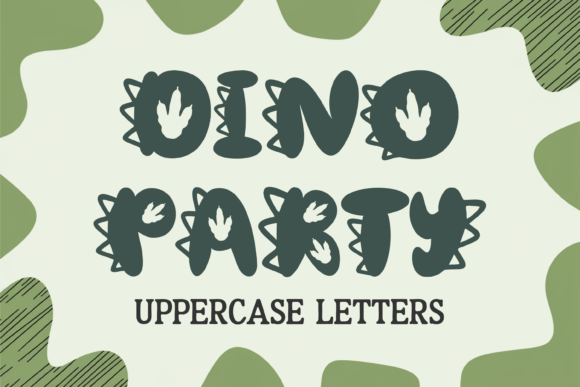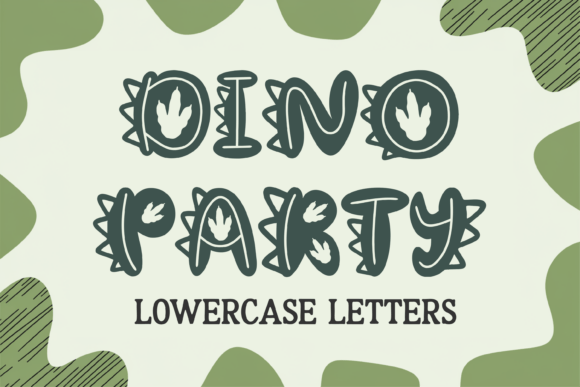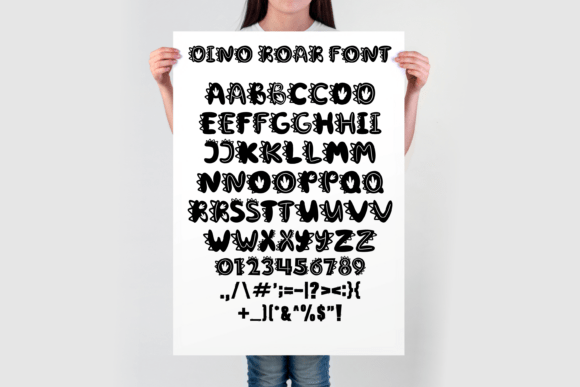
Unleash Your Creativity with the Dino Roar Font: A Playful Dinosaur-Inspired Typeface
Are you a designer, crafter, or DIY enthusiast looking for a fun and bold font to add a prehistoric touch to your projects? Look no further than the Dino Roar Font! This exciting typeface features spiky, dinosaur-inspired letters with embedded dinosaur footprints, making it perfect for crafting projects, kids’ birthday invitations, t-shirts, and jungle-themed party decorations.
What Makes the Dino Roar Font So Special?
The Dino Roar Font is more than just a font – it’s a design element that can elevate your projects to the next level. Its unique, playful design features:
- Spiky, prehistoric letters: Each letter is carefully crafted to resemble dinosaur spikes, adding a fun and edgy touch to your designs.
- Embedded dinosaur footprints: The font features embedded dinosaur footprints, adding an extra layer of whimsy and adventure to your projects.
Perfect for Crafting and Design Projects
The Dino Roar Font is ideal for a wide range of projects, including:
- Cricut and Silhouette projects: The font’s compatibility with popular cutting machines makes it perfect for crafting and DIY projects.
- Kids’ birthday invitations and party decorations: The font’s playful design is sure to delight kids and add a fun touch to party invitations, banners, and decorations.
- T-shirts and apparel: The Dino Roar Font is perfect for designing custom t-shirts, hoodies, and other apparel for kids and adults alike.
- Jungle-themed designs: The font’s prehistoric vibe makes it ideal for jungle-themed designs, including stickers, classroom decor, and adventure-themed banners.
Tips and Ideas for Using the Dino Roar Font
Here are a few ideas to get you started with the Dino Roar Font:
- Create a dinosaur-themed party invitation: Use the font to design a fun and playful invitation that sets the tone for a roaring good time.
- Design a custom t-shirt or hoodie: The font is perfect for designing a fun and eye-catching t-shirt or hoodie for kids and adults alike.
- Add a prehistoric touch to your classroom decor: Use the font to create fun and educational classroom decor, such as dinosaur-themed posters, banners, and stickers.
The Dino Roar Font is a fun and playful dinosaur-inspired typeface that’s perfect for designers, crafters, and DIY enthusiasts. With its unique design, multiple file formats, and digital compatibility, this font is sure to become a go-to for anyone looking to add a prehistoric touch to their projects. So why wait? Download the Dino Roar Font today and start unleashing your creativity!